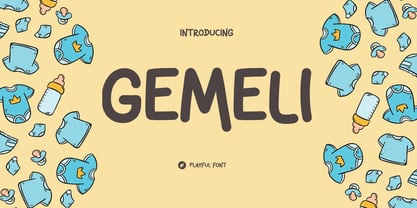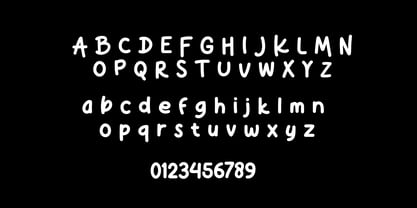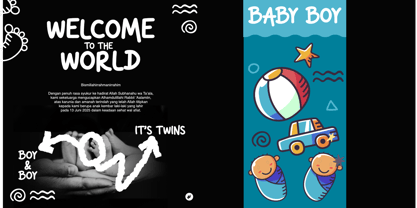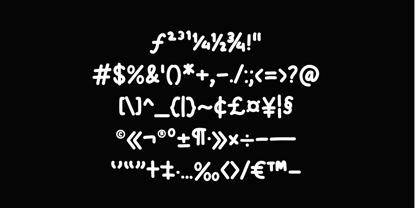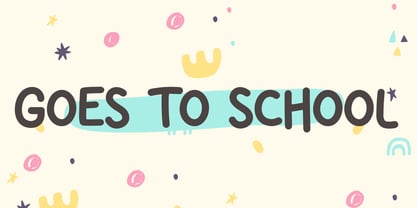
Gemeli
La famille de polices Gemeli a été conçue par Wahyu Aji Prasetyo et publiée par WAP Type. Gemeli contient 1 styles. En savoir plus sur cette famille
A sticky handwrite font—a playful, handwritten style that often looks bubbly, soft, or even slightly “melty”—is great for designs that want to feel fun, personal, and informal. Here are some of the best uses:
🧸 1.
Children’s Content
• Kids’ books, posters, games, and educational materials
• Birthday invitations, name tags, or party favors
• Appeals to young audiences with its friendly and approachable style
💌 2.
Greeting Cards & Notes
• Thank-you cards, love notes, or personal letters
• Sticky handwriting adds a casual, heartfelt vibe
🎨 3.
Crafts & DIY Projects
• Labels for homemade items (like soaps, snacks, or candles)
• Scrapbooking, journaling, or planners
📱 4.
Social Media & Digital Content
• Quotes, captions, or thumbnails with a cheerful or quirky tone
• Instagram Stories or YouTube covers aimed at a younger audience
🛍️ 5.
Creative Branding
• Perfect for boutique brands, stationery shops, or handmade goods
• Gives your brand a warm and human touch
📚 6.
Posters & Flyers for Events
• School events, art fairs, community markets
• Easy to read and instantly inviting